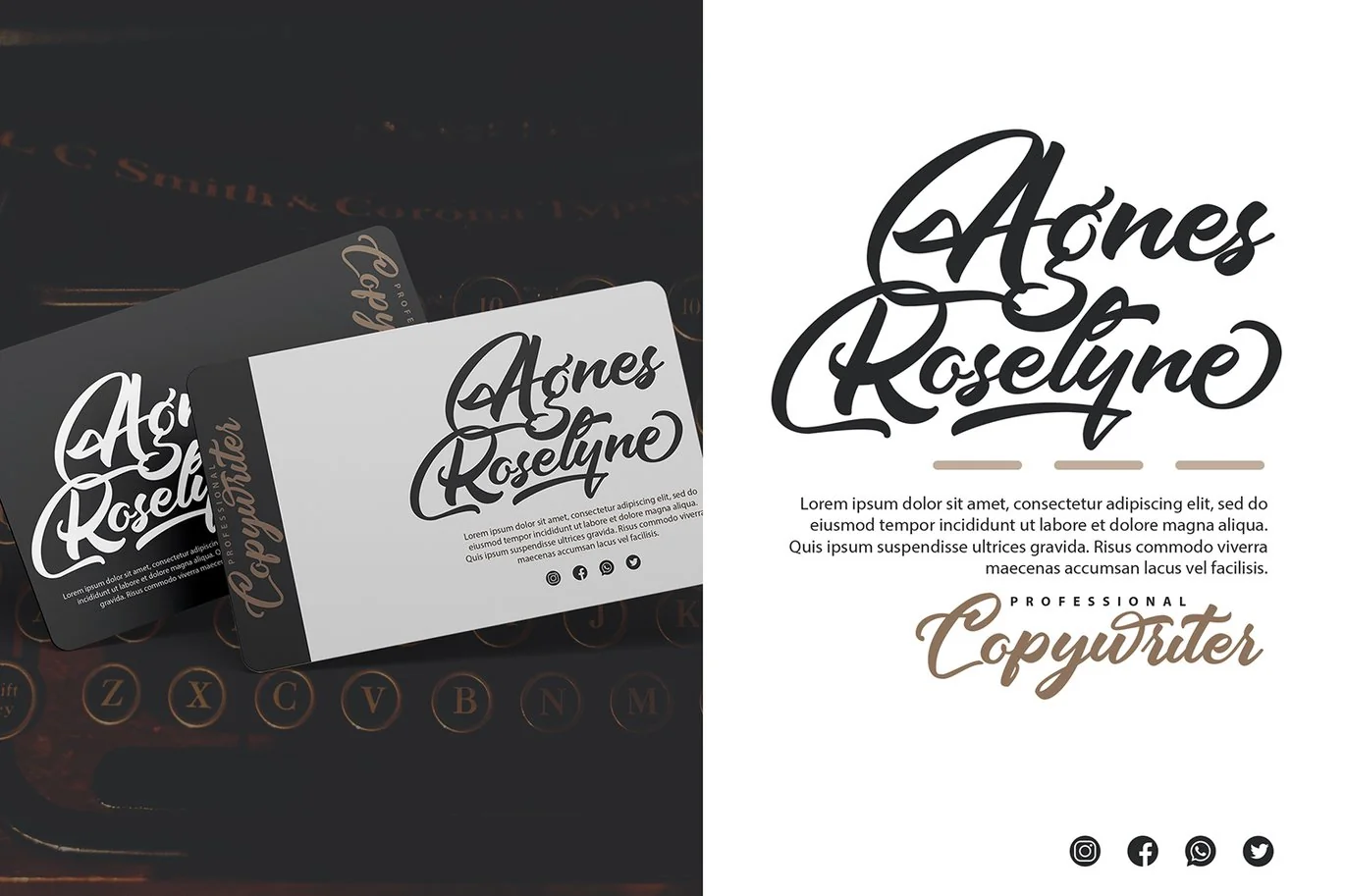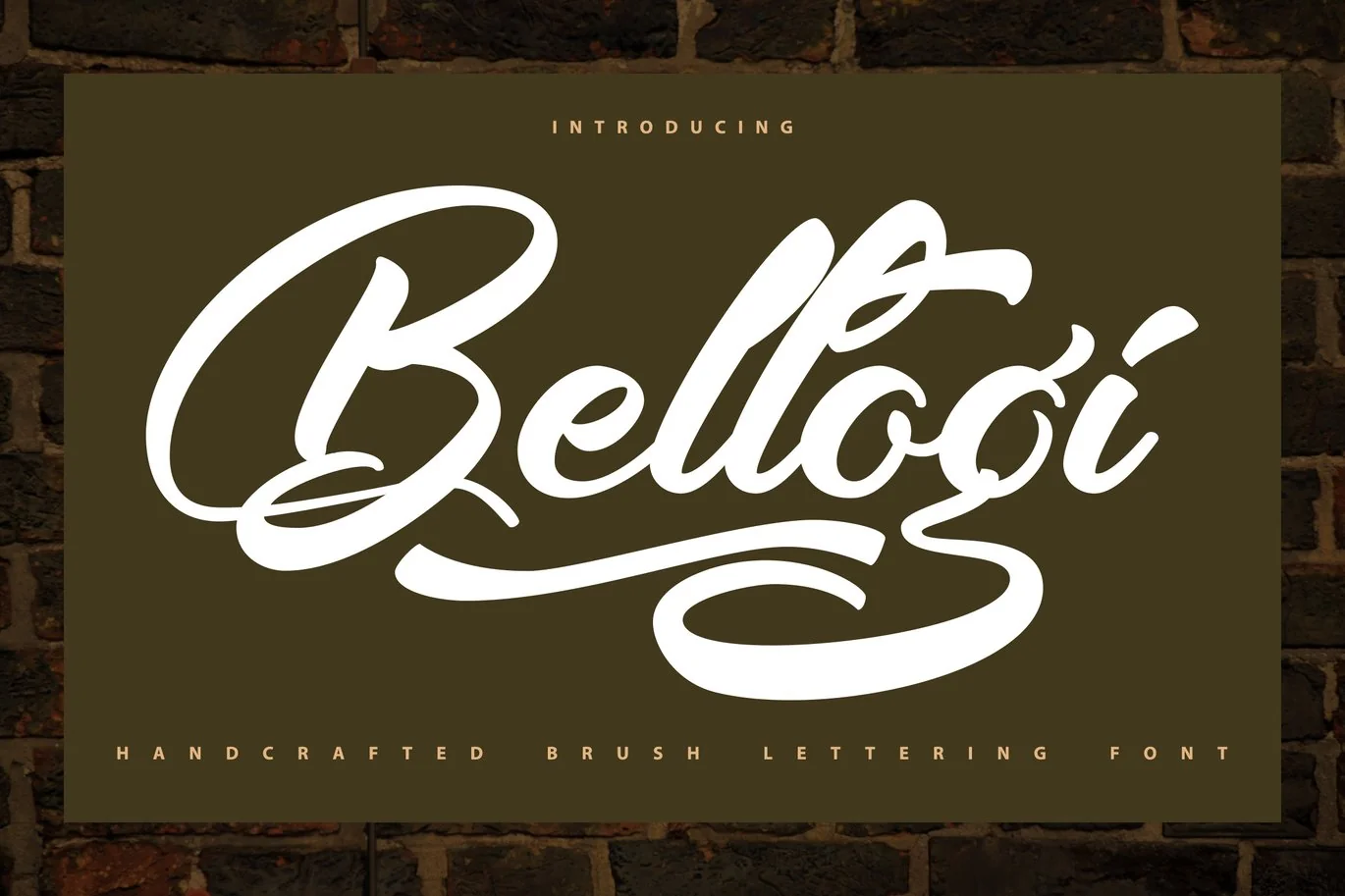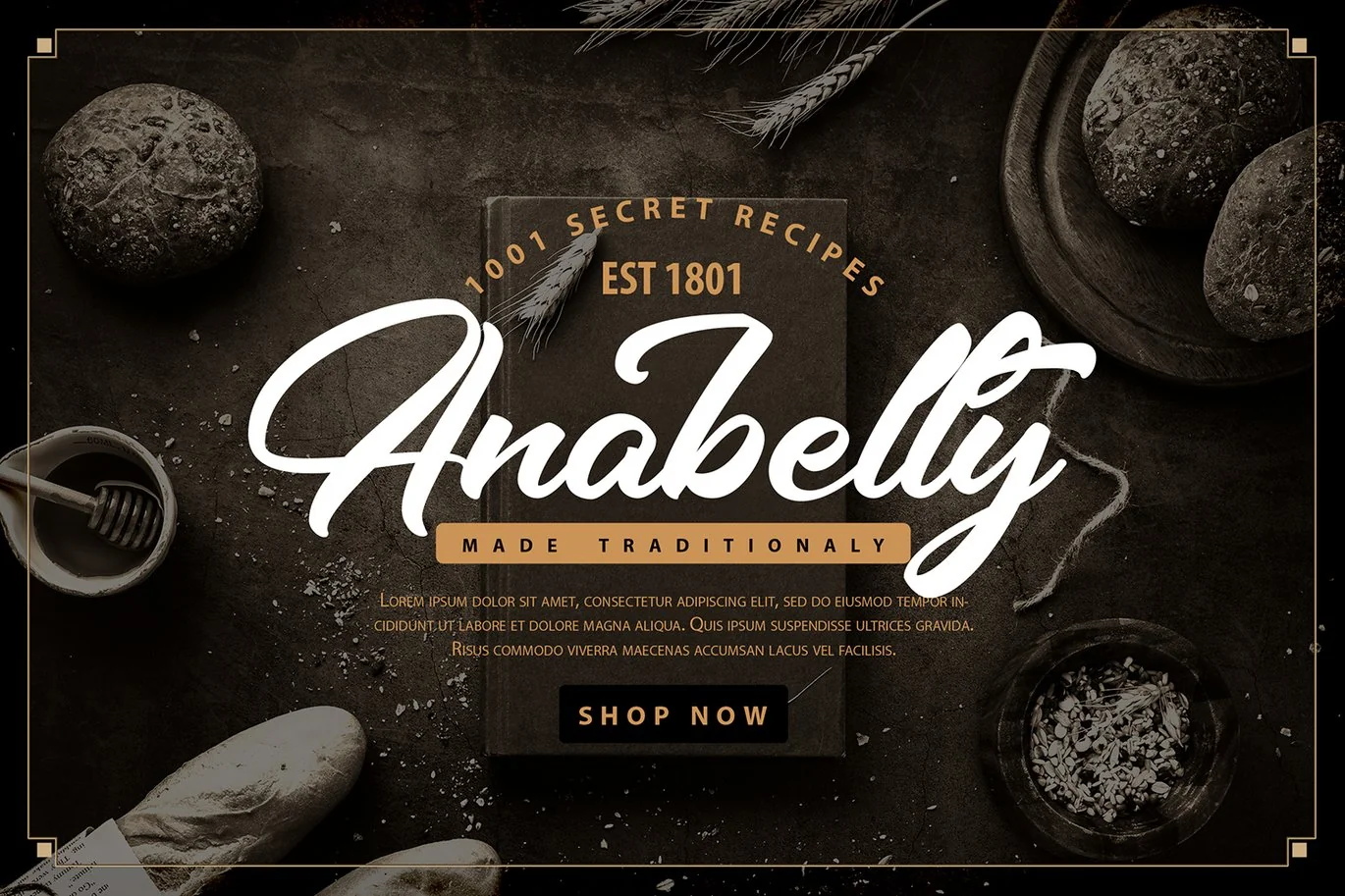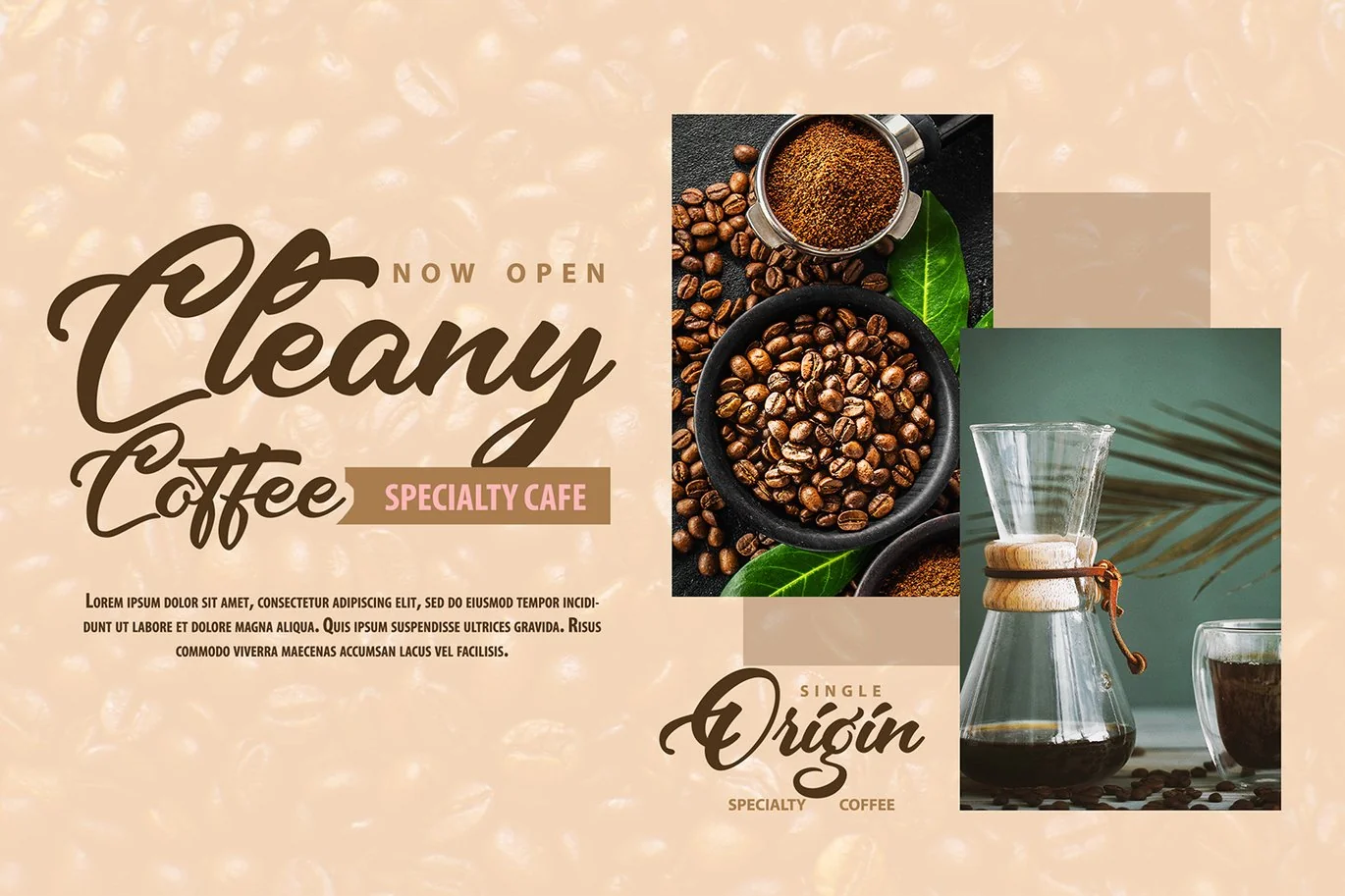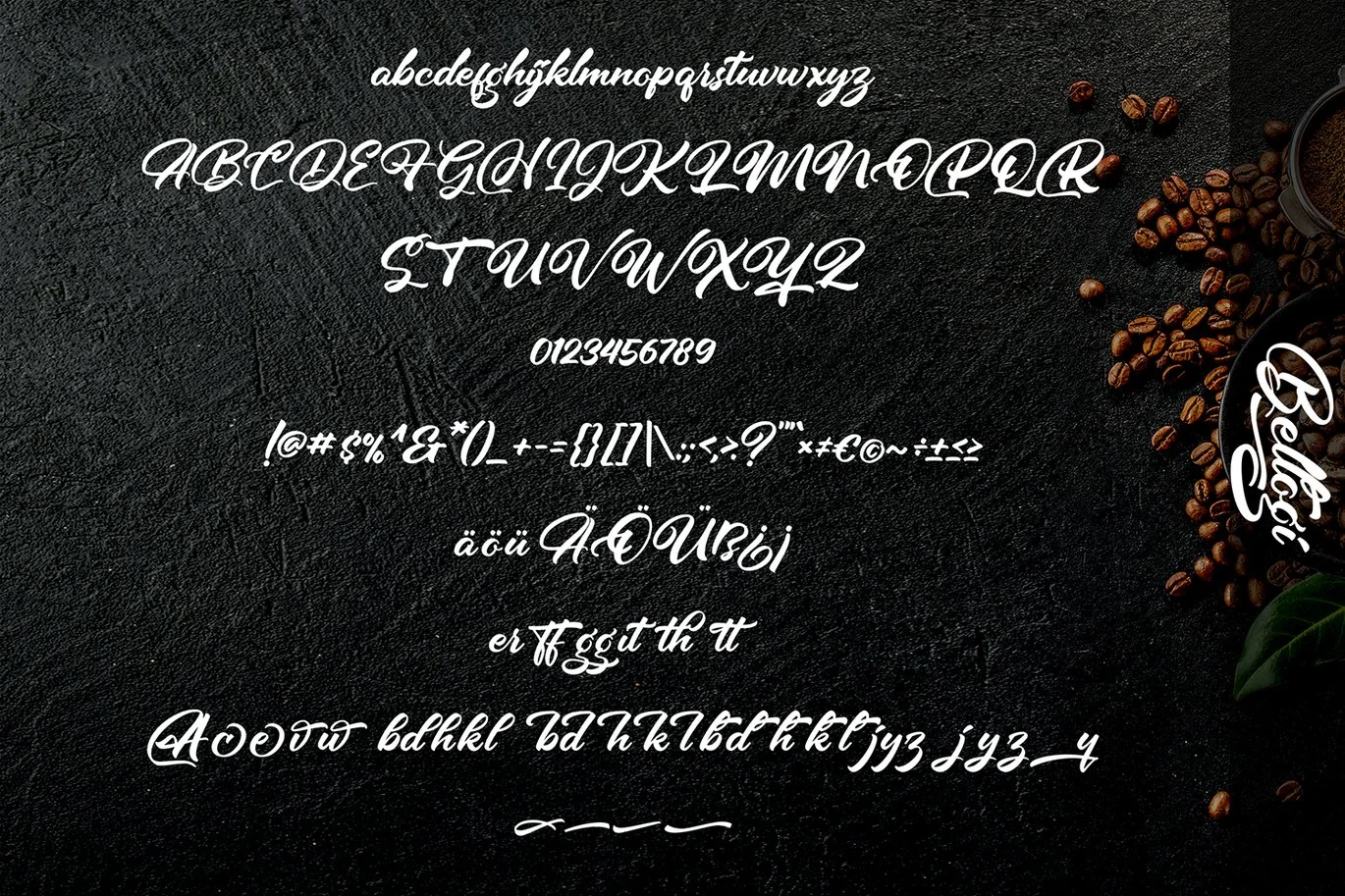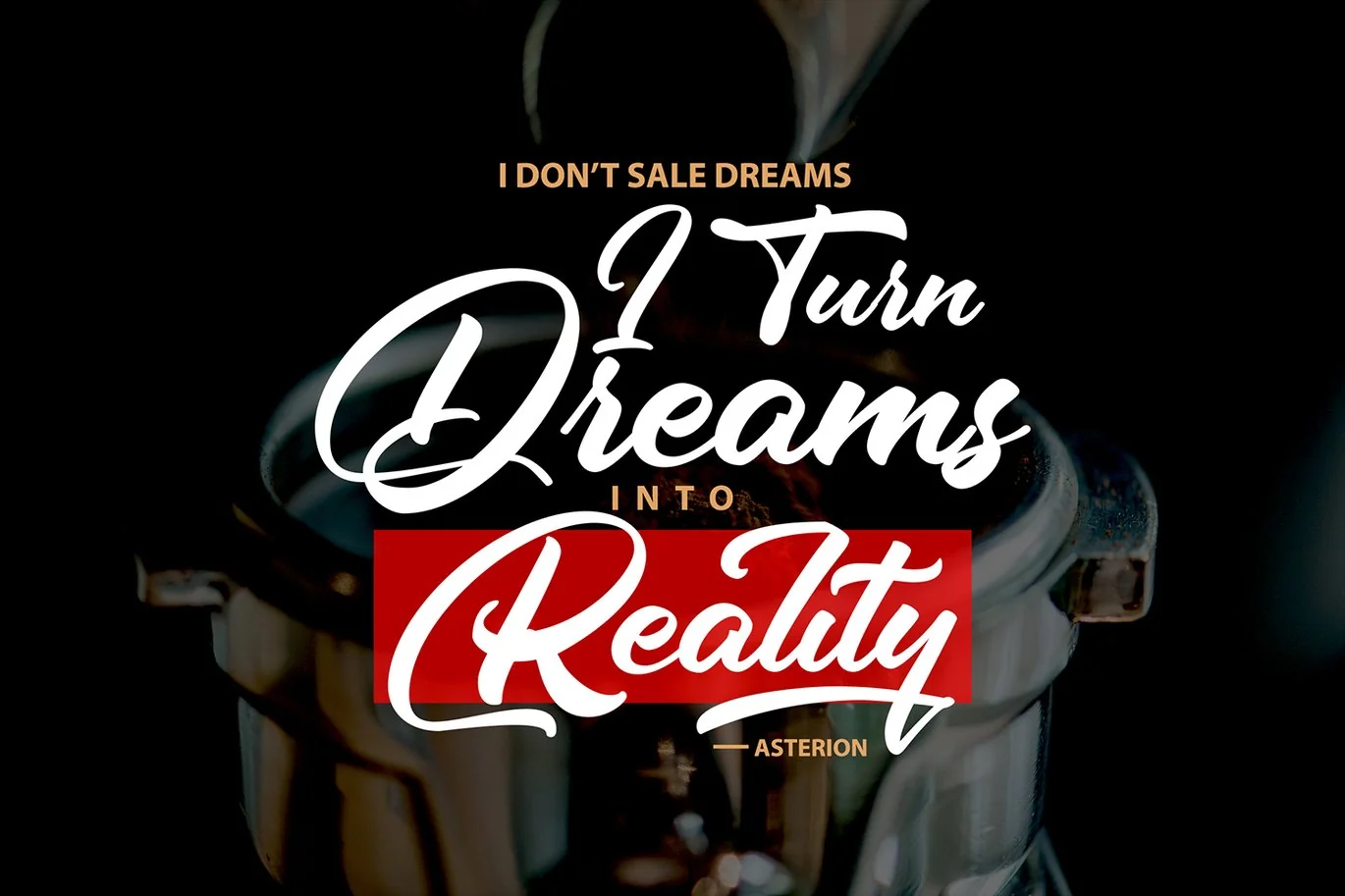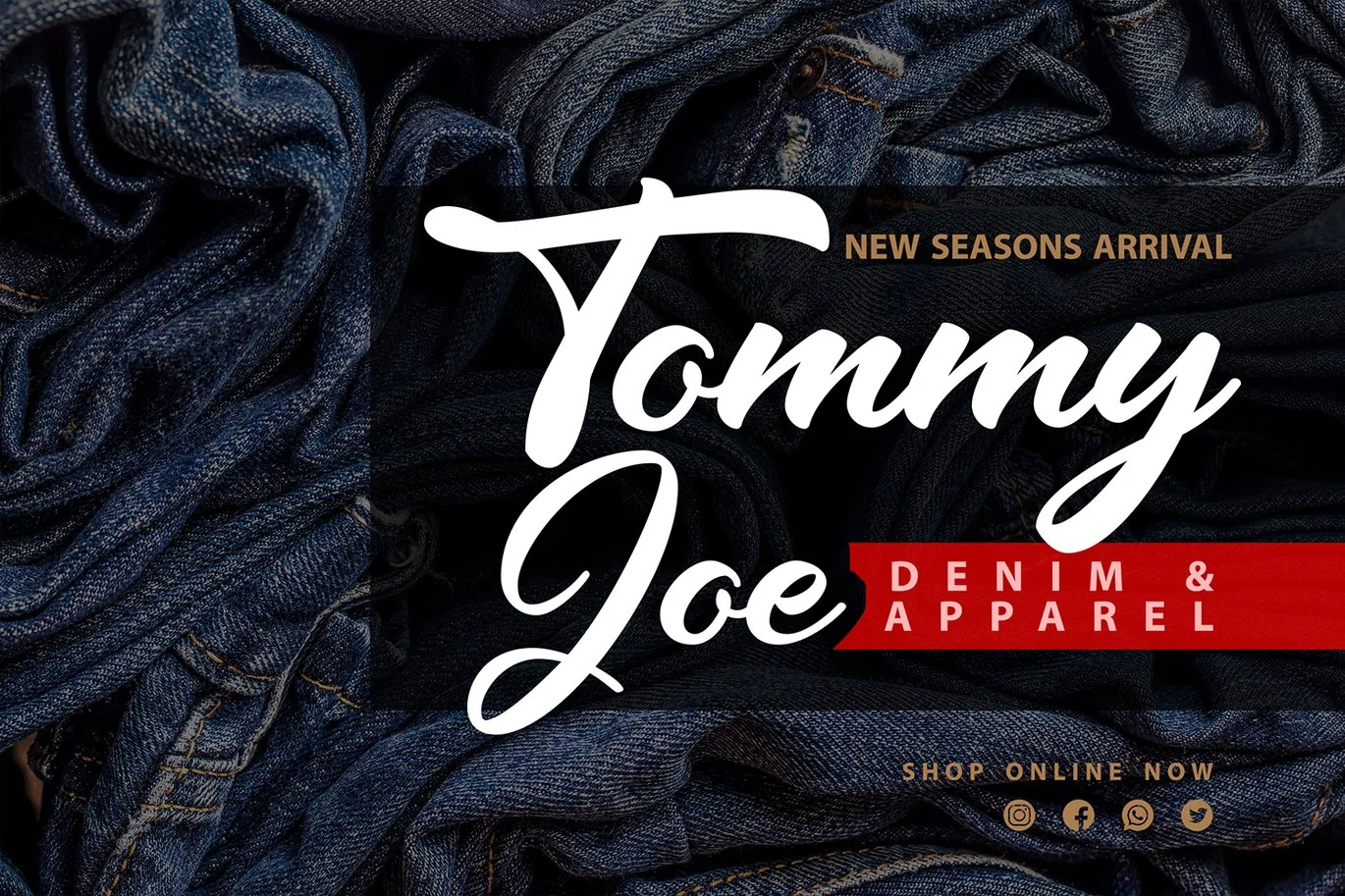
Bellogi | Handcrafted Brush Lettering Font
Bellogi | Handcrafted Brush Lettering Font with a calligraphy style, So beautiful on invitation like greeting cards, branding materials, business cards, quotes, posters, and more!